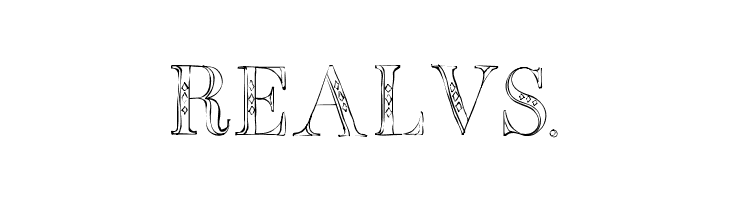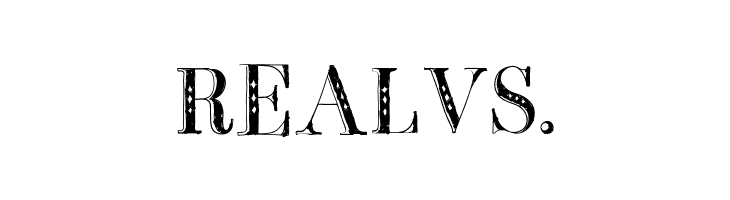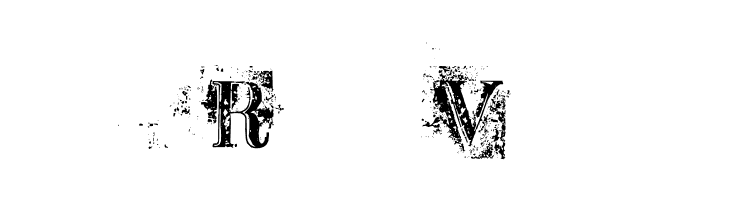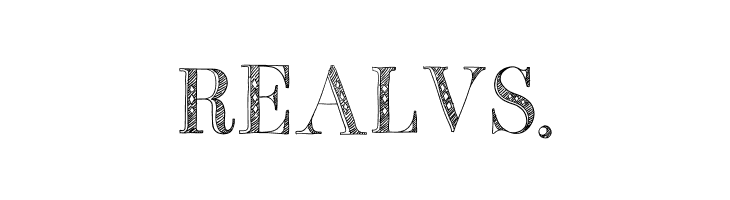
A decorative font with intricate, ornamental details and a vintage-modern style.
A distressed, grunge-style font with a bold, weathered appearance.
A bold, decorative font with vintage flair and intricate patterns.
A decorative, sketch-like font with bold outlines and intricate hatching.